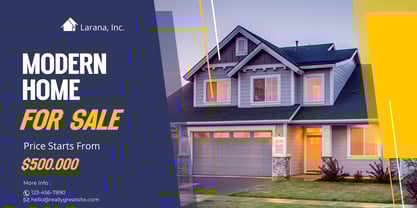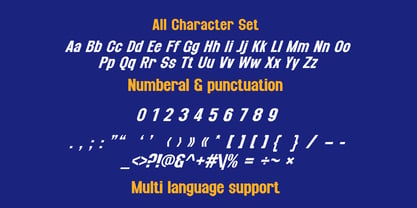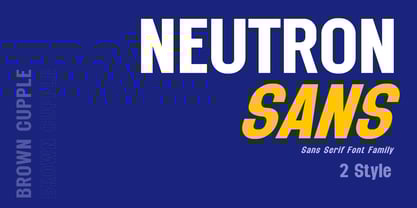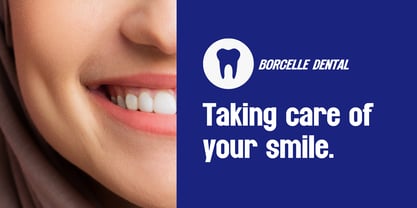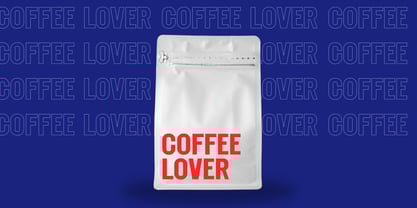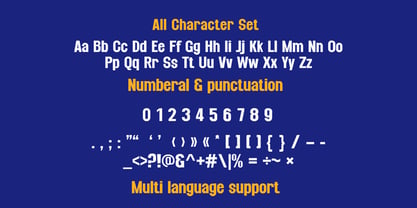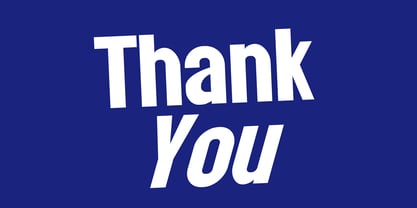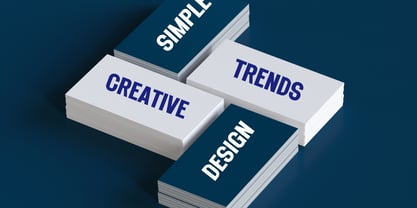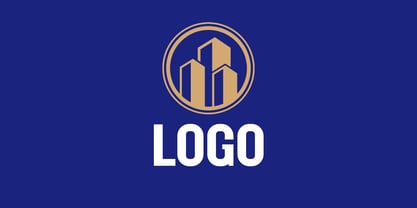
Neutron Sans
by Brown Cupple Typeface
Neutron Sans is Sans serif font family. It embodies playfulness and authenticity and is the perfect choice for all your favorite projects, or even for blog posts, logos, branding, ads, invitations, greeting cards, planners, photo albums, decorations, and much more. Add it to any of your designs, and enjoy the results!
Designers: Nattha​ Potchanad​
Foundry: Brown Cupple Typeface